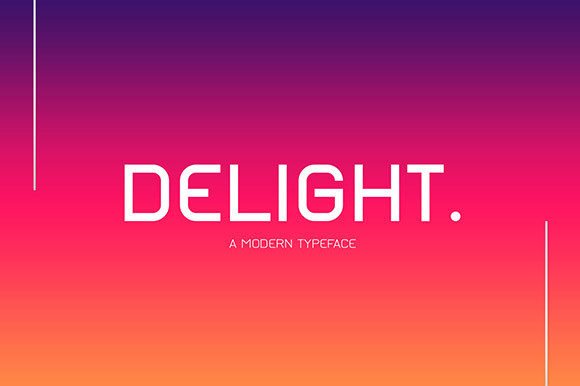
Discover the Joy of Design with Delight Font
Have you ever found yourself staring at a blank page, trying to bring a creative idea to life, only to be held back by the perfect font? For designers, the right font can be the missing piece that makes a project truly shine. And that’s exactly what we’re excited to introduce you to: Delight Font, a modern sans serif font that’s sure to become your go-to companion for any design project.
With its clean and simple style, Delight Font is the perfect addition to a wide range of designs, from elegant business cards to playful social media graphics. Whether you’re working on a personal project or a client brief, this versatile font is sure to bring a touch of delight to your work. And with its endless possibilities, you’ll be wondering how you ever managed without it!
- Unique Characteristics: Delight Font features a unique, modern design with a high level of legibility, making it suitable for a wide range of applications, including digital and print media.
- Font Style: The font comes in a single style, but it can be used to create a variety of effects, such as bold, italic, and condensed versions.
Delight Font Review
Overall, I think the Delight Font is a solid addition to any designer’s toolkit. Here’s what I like about it:
- ✨ Unique and playful style that can add a touch of whimsy to any project
- ✨ Wide range of font weights and styles, making it easy to find the perfect fit for your design
- ✨ High-quality glyphs and kerning, resulting in a smooth and professional appearance
- ⚠️ Limited language support, which may be a concern for designers working on multilingual projects
- ⚠️ Some of the font weights may feel a bit too ornate or over-the-top, which can be overwhelming in certain contexts
- ⚠️ Not ideal for use in small text sizes, as the font can become difficult to read
Overall, I think the Delight Font is a fun and versatile choice for designers looking to add some personality to their work. While it may not be the best choice for every project, it’s definitely worth having in your arsenal.
Getting the Most Out of Delight Font
To get the most out of Delight Font, try combining it with bold, italics, and underlining to create visually appealing text effects.
Use Delight Font in conjunction with other design elements, such as images and colors, to create a cohesive and engaging design.
Delight Font is ideal for:
1. Wedding invitations and other special occasion materials.
2. Branding materials, such as logos and business cards.
3. Designing menus and other print materials.